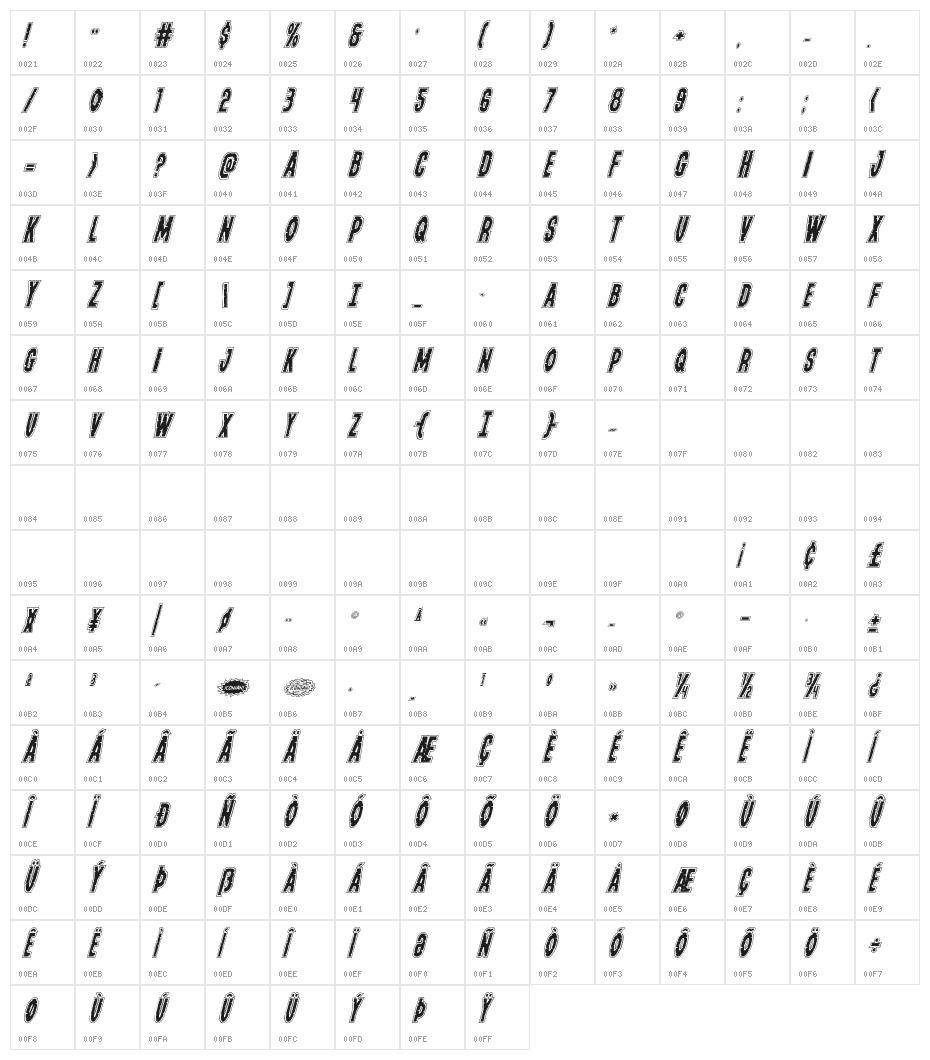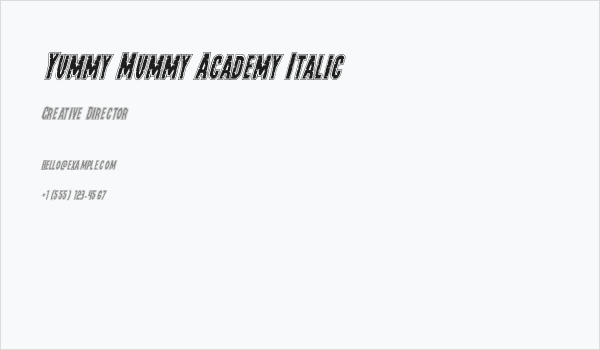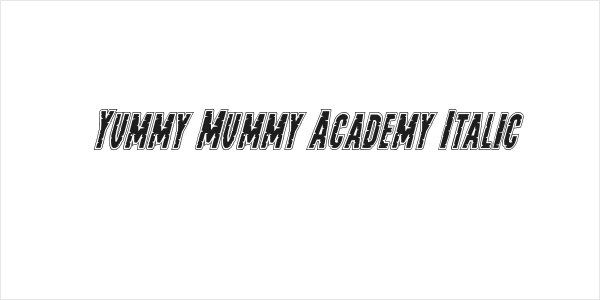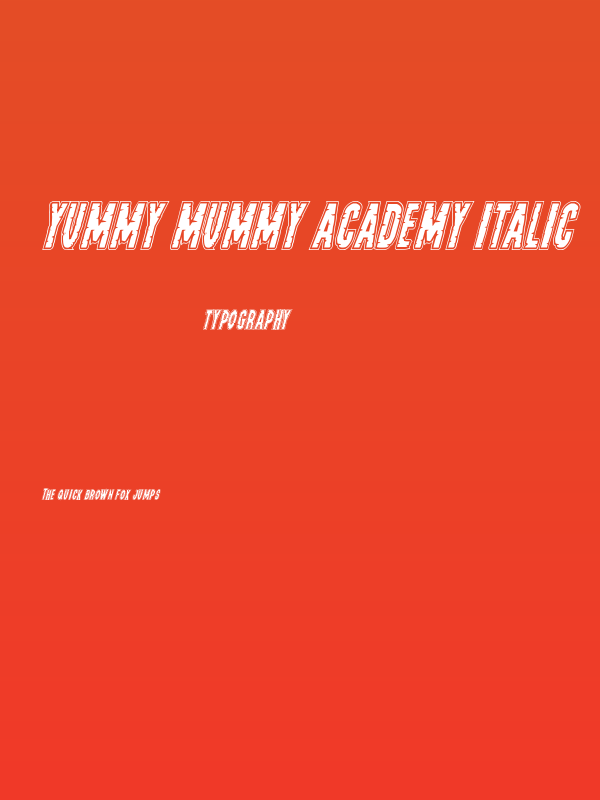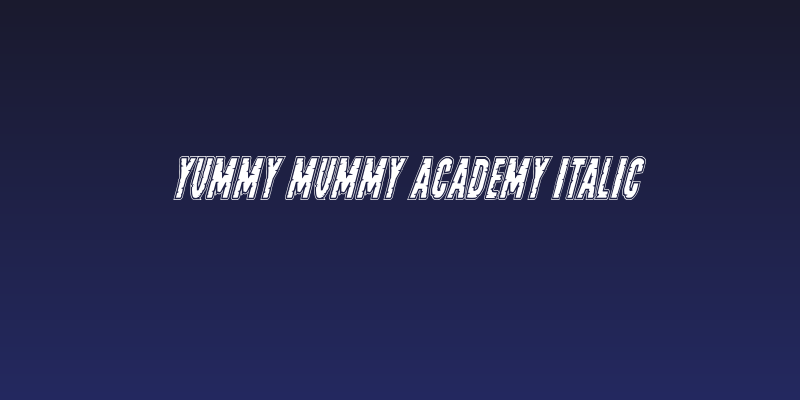
Yummy Mummy Academy Italic Font
Yummy Mummy Academy Italic Description
This font features a bold and dynamic style with a distinct italic slant, giving it a sense of movement and energy. The characters are outlined with a thick, black border that adds a dramatic flair, while the inner portions are filled with a textured pattern that creates a rugged, distressed look. The uppercase and lowercase letters maintain a consistent style, with sharp angles and a slightly condensed form. Numbers and special characters are equally bold and expressive, making them stand out prominently. This font is well-suited for projects that require a strong visual impact and a touch of edginess.
| Proposed Projects | Ideal for posters, album covers, sports branding, and any project needing a bold, energetic typeface. |